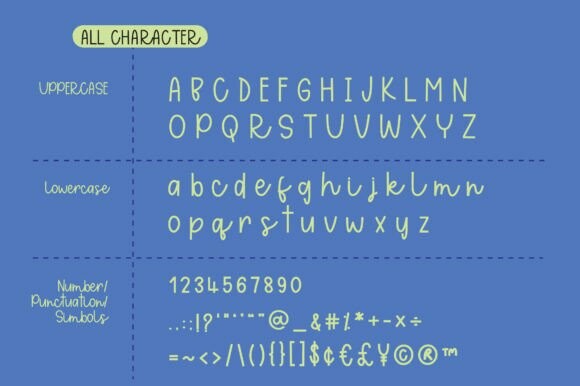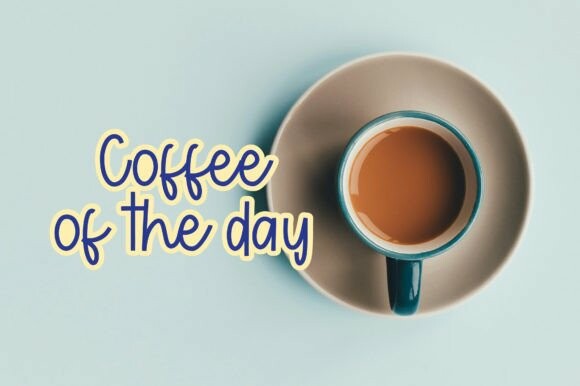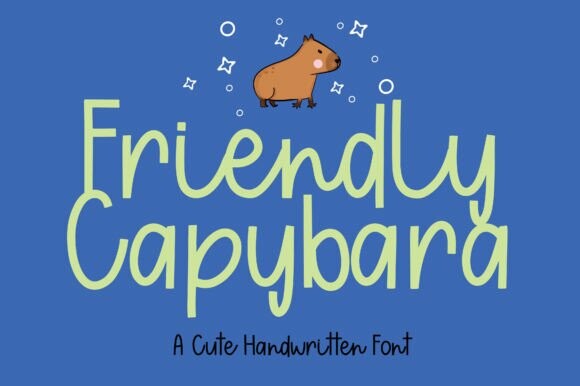
Friendly Capybara Font
Friendly Capybara Font – a fine fusion of handwritten scripts crafted with an artist’s grace and subtlety. With its modern calligraphic undertones and delightful retro charm, this typeface was born to shine in the world of classy yet contemporary visual storytelling. Yes, you heard it right! It’s not just a Font, it’s Art.
The Friendly Capybara Font, designer-crafted for procreation, manages to convey a sense of warmth, inviting the viewer to embrace its loveliness. Cursive in nature, it brings an air of elegance to any design. Imagine it as the mesmerizing font logo of an upscale bistro or as the eye-popping text for your modern font needs. It even finds utility in business settings like Sans and San Serif, proving its versatility.